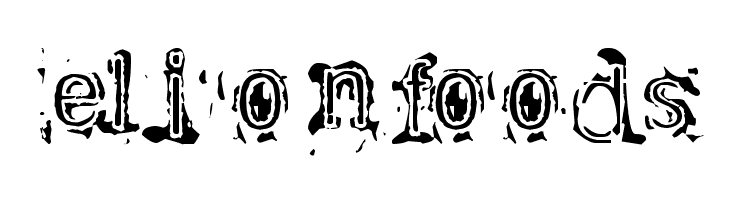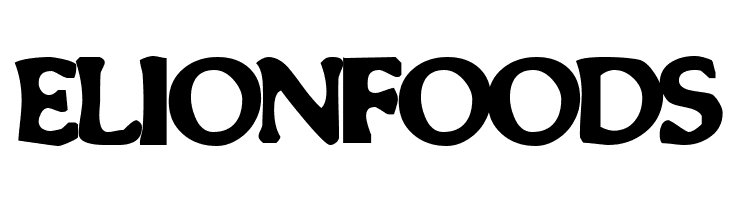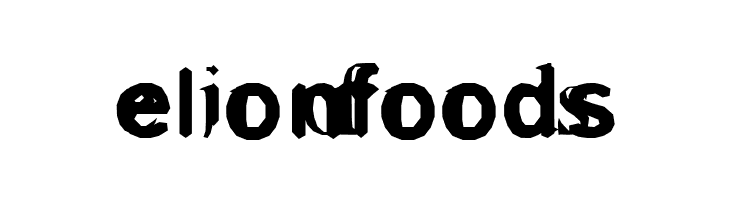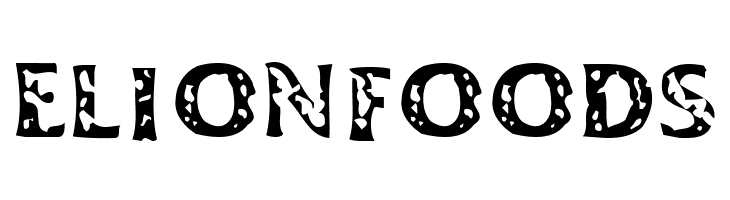
A bold, playful font with wavy, rounded characters and a whimsical style.
A distressed, chaotic font with jagged, uneven strokes for an edgy look.
A bold, decorative font with a distressed, playful texture.
A bold, vintage-style font with a distressed, eerie aesthetic.